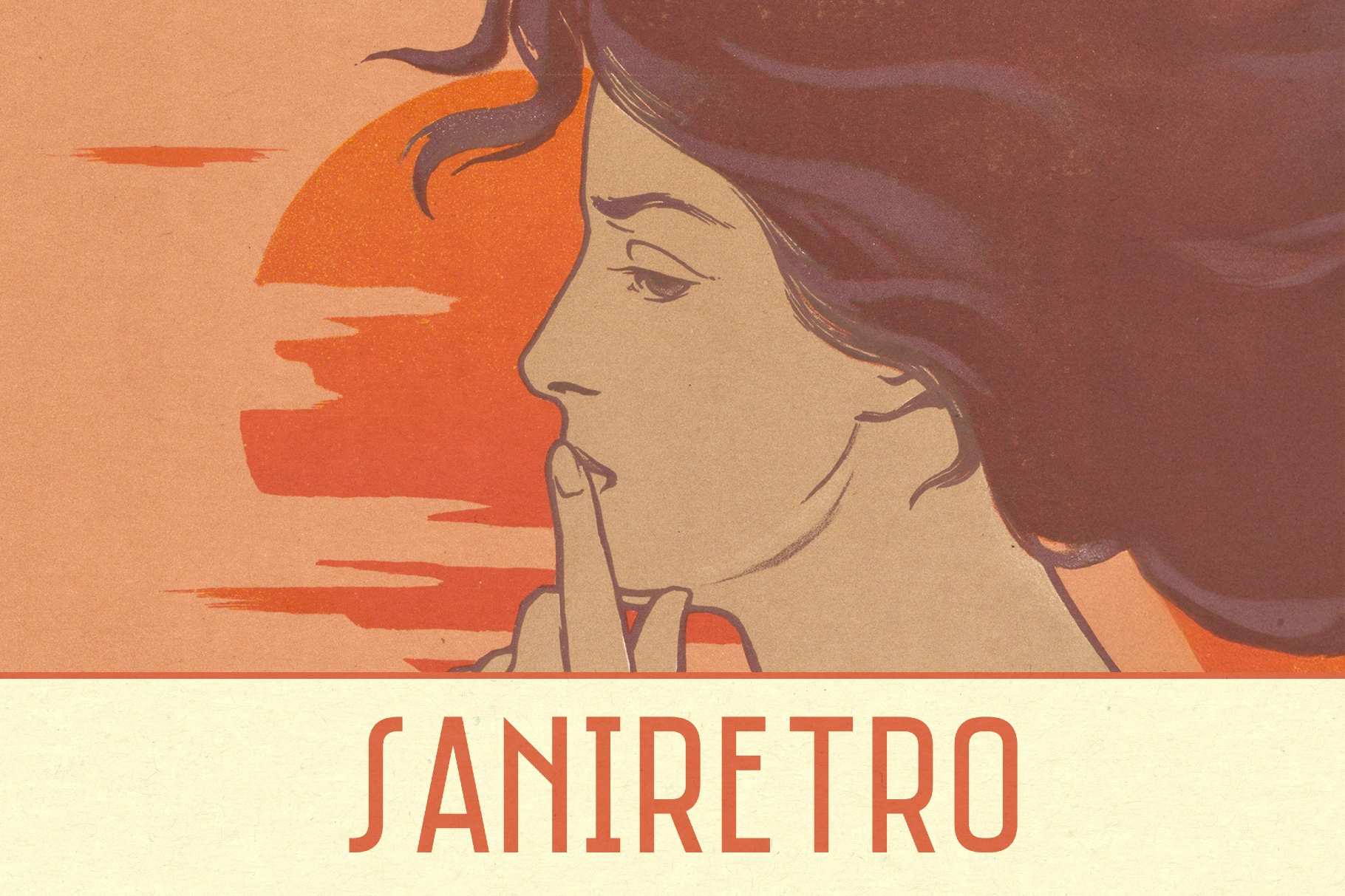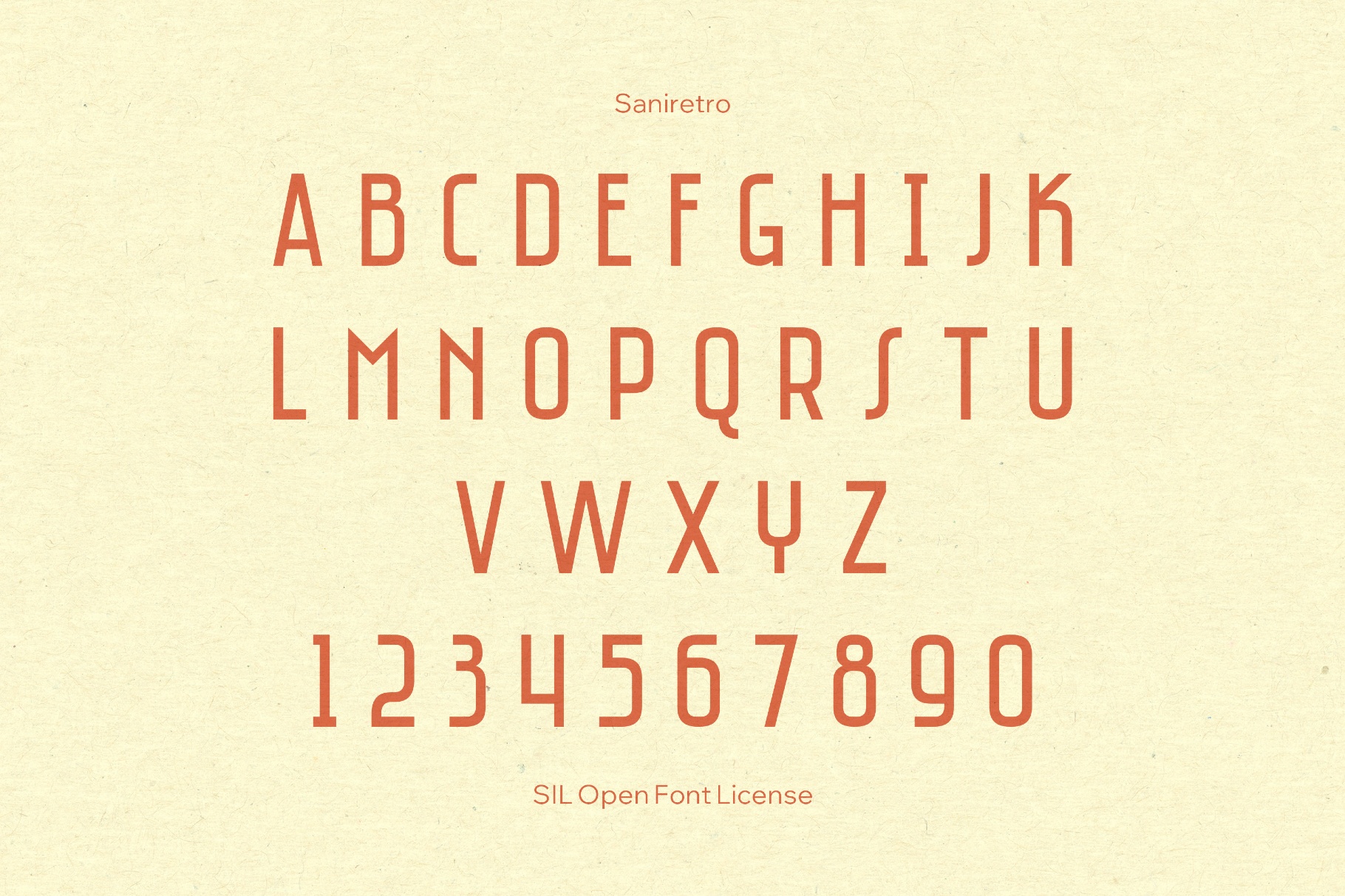
Saniretro Retro Font
Saniretro
An all-caps Saniretro with cut-in shapes wraps bold, rounded strokes in a nostalgic palette of curves. The font confidently echoes late-70s disco sleeves and arcade marquees. It’s a fit for poster headlines, logo wordmarks, venue signage, product packaging, book covers, event graphics, album artwork, and statement social media visuals.
- Uppercase letters only.
- Multilingual support across extended Latin scripts.
- Common mathematical symbols.